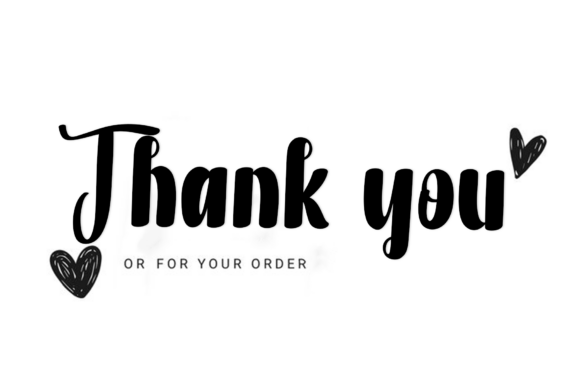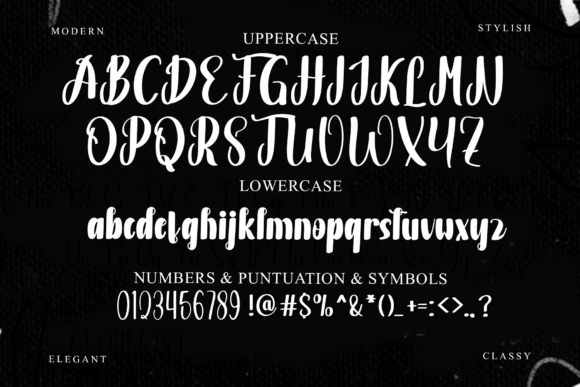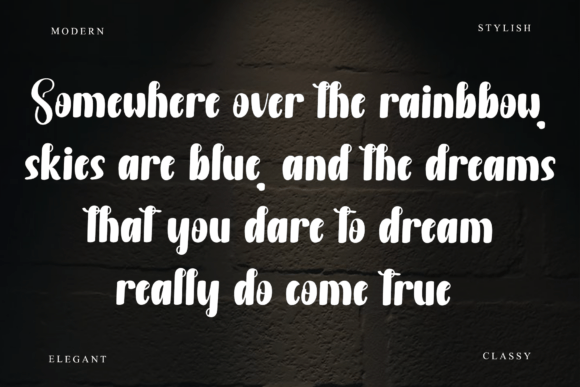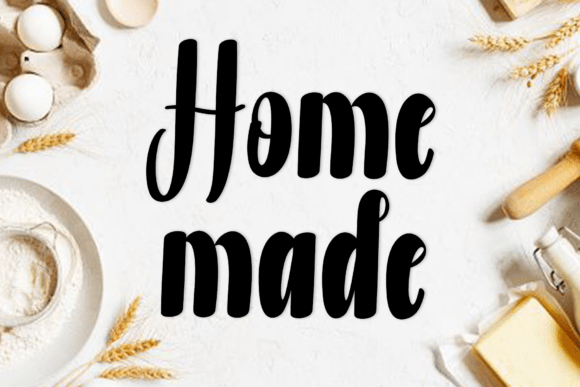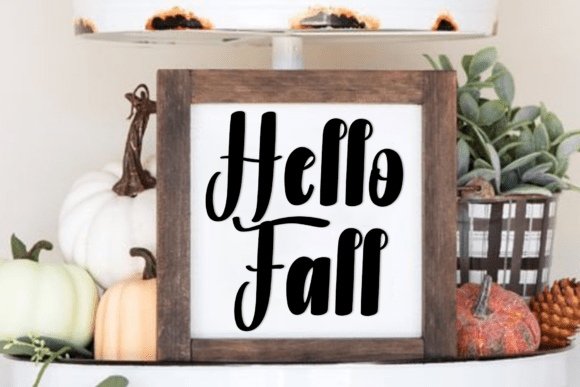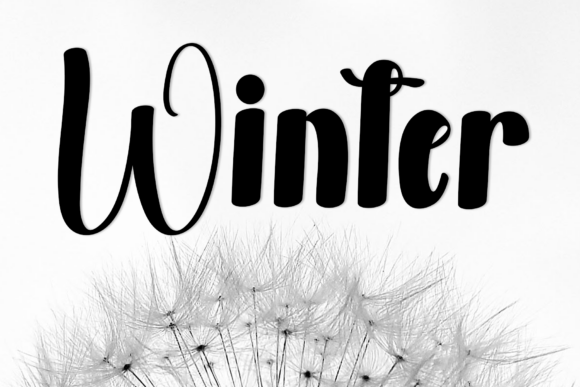
Introduction to Kitchen Cabinet Font
As I sat at my kitchen table, surrounded by twinkling lights and the warm glow of the holiday season, I couldn’t help but feel a surge of creativity. I was designing a set of greeting cards for my loved ones, and I wanted to add a touch of magic to the words. That’s when I stumbled upon the Kitchen Cabinet Font – a festive and merry typeface that captures the spirit of the holiday season.
This enchanting font is a treasure trove of creative possibilities, perfect for designers looking to add a whimsical flair to their projects. With its decorative elements and transparent background, the Kitchen Cabinet Font is a high-quality design resource that will elevate your work to new heights. Whether you’re working on a holiday-themed project or simply want to add some cheer to your designs, this font is a must-have for any creative enthusiast.
Key Features of Kitchen Cabinet Font
- Perfect for creative projects: Use this font for a wide range of creative projects, from logos and branding to packaging and signage.
Honest Review: Kitchen Cabinet Font
As a designer, I’ve had the pleasure of working with numerous fonts for various creative projects. Recently, I had the chance to experiment with the Kitchen Cabinet Font, and I must say, it’s been an interesting experience.
- High quality design: The font’s aesthetic is clean and modern, making it suitable for a wide range of design projects.
- ⚠️ Limited character set: The font’s character set is relatively small, which may not be ideal for projects that require extensive typography.
- ⚠️ Not ideal for small text: The font’s size and style may not be suitable for small text, which can make it difficult to read.
Overall, I’d say the Kitchen Cabinet Font is a solid addition to any designer’s toolkit. While it may have its limitations, it’s a great resource for designers looking for a high-quality, free font for their creative projects.
The Kitchen Cabinet Font is perfect for a variety of design projects, including social media graphics, presentations, and blog posts. Its high-quality design and transparent background make it a versatile and practical design resource.